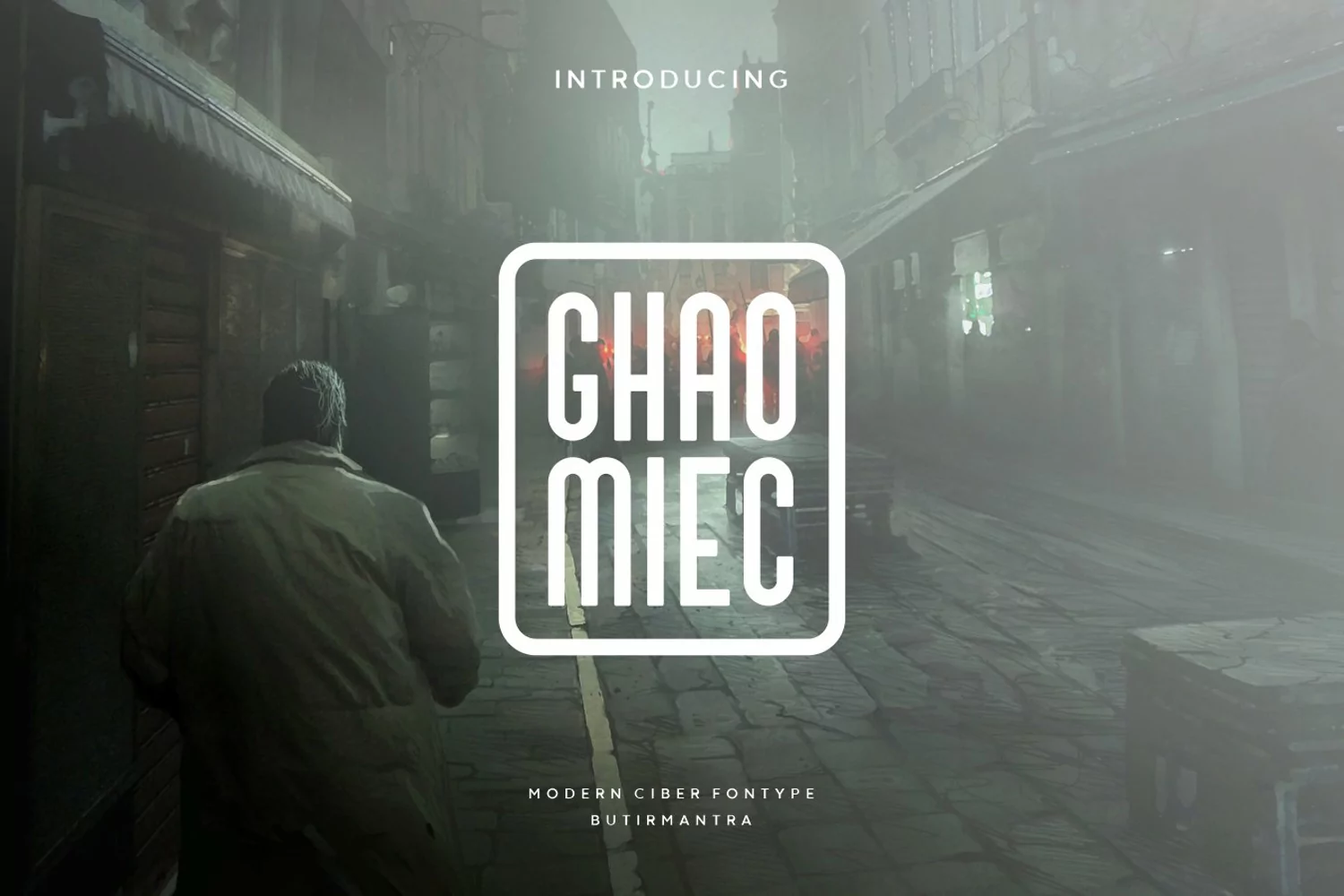
Created By butirmantra
Ghaomiec
Ghaomiec finds his inspiration in modern and slightly contemporary form types. The slab serif font family, Ghaomiec consists of solid fonts and outlines and an outline style that lends an elegant demeanor to a light design. This font looks great on looks and clothing or on packaging designs, grab it and use your creativity.